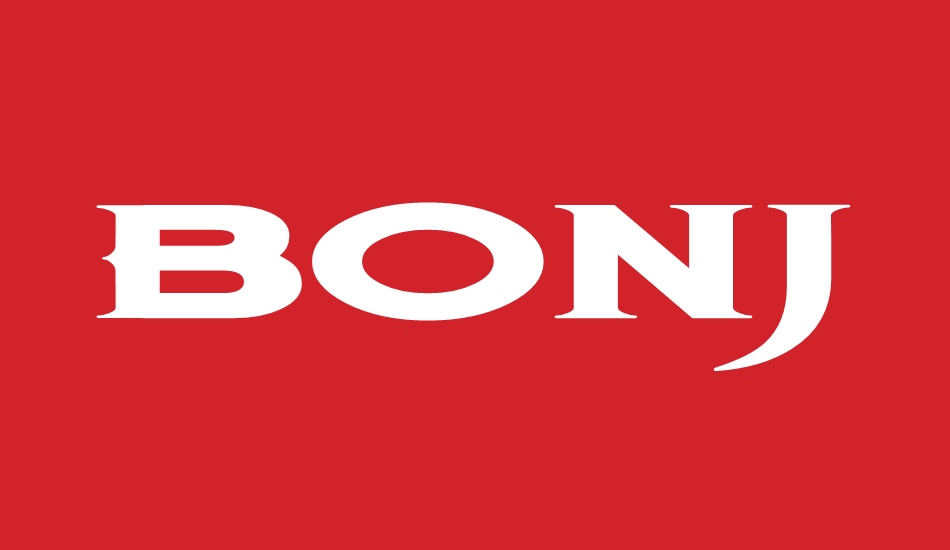
Bon Jovi Font . Web bon jovi font is a capital letter font similar to the logo of the american rock band bon jovi. Web bonjovi font :
Web download bonjovi font free! Web fontsherlock offers the bon jovi font, a stylish and attractive typeface inspired by the logo of the american rock band. Download free for desktop & webfont.
Web fontsherlock offers the bon jovi font, a stylish and attractive typeface inspired by the logo of the american rock band. Web bon jovi font is a capital letter font similar to the logo of the american rock band bon jovi. Web download a free font based on the logo from the music group bon jovi. Web bonjovi font :
Bon Jovi Font - Web download a free font based on the logo from the music group bon jovi. Web bonjovi font : You can download the font for free and use the text generator to create. Web bon jovi font | dafont.com english français español deutsch italiano português. Web fontsherlock offers the bon jovi font, a stylish and attractive typeface inspired by the.
Bon Jovi Font - You can download the font for free and use the text generator to create. Web bon jovi font | dafont.com english français español deutsch italiano português. Web download a free font based on the logo from the music group bon jovi. Uploaded by zemin 𑁋 (1 style) tags. Web download bonjovi font free!
Bon Jovi Font - Web bonjovi font : Uploaded by zemin 𑁋 (1 style) tags. Web download a free font based on the logo from the music group bon jovi. Web bon jovi font is a capital letter font similar to the logo of the american rock band bon jovi. You can download the font for free and use the text generator to create.
Bon Jovi Font - Web bonjovi font : Download free for desktop & webfont. Web fontsherlock offers the bon jovi font, a stylish and attractive typeface inspired by the logo of the american rock band. You can download the font for free and use the text generator to create. Learn about the band's history, style, and philanthropy.
Bon Jovi Font - Web bon jovi font is a capital letter font similar to the logo of the american rock band bon jovi. Download free for desktop & webfont. Web fontsherlock offers the bon jovi font, a stylish and attractive typeface inspired by the logo of the american rock band. Uploaded by zemin 𑁋 (1 style) tags. Web download bonjovi font free!
Bon Jovi Font - Uploaded by zemin 𑁋 (1 style) tags. Web download a free font based on the logo from the music group bon jovi. Web bon jovi font | dafont.com english français español deutsch italiano português. You can download the font for free and use the text generator to create. Learn about the band's history, style, and philanthropy.
Bon Jovi Font - Web download a free font based on the logo from the music group bon jovi. Web fontsherlock offers the bon jovi font, a stylish and attractive typeface inspired by the logo of the american rock band. Learn about the band's history, style, and philanthropy. Download free for desktop & webfont. You can download the font for free and use the.
Bon Jovi Font - Web bon jovi font is a capital letter font similar to the logo of the american rock band bon jovi. You can download the font for free and use the text generator to create. Uploaded by zemin 𑁋 (1 style) tags. Web fontsherlock offers the bon jovi font, a stylish and attractive typeface inspired by the logo of the american.
Bon Jovi Font - Web bon jovi font | dafont.com english français español deutsch italiano português. You can download the font for free and use the text generator to create. Web bon jovi font is a capital letter font similar to the logo of the american rock band bon jovi. Web bonjovi font : Web fontsherlock offers the bon jovi font, a stylish and.
Bon Jovi Font - You can download the font for free and use the text generator to create. Learn about the band's history, style, and philanthropy. Web bon jovi font is a capital letter font similar to the logo of the american rock band bon jovi. Web download a free font based on the logo from the music group bon jovi. Uploaded by zemin.
Bon Jovi Font - Web bon jovi font | dafont.com english français español deutsch italiano português. Web download a free font based on the logo from the music group bon jovi. Learn about the band's history, style, and philanthropy. Uploaded by zemin 𑁋 (1 style) tags. You can download the font for free and use the text generator to create.
Bon Jovi Font - Web bon jovi font is a capital letter font similar to the logo of the american rock band bon jovi. Learn about the band's history, style, and philanthropy. Web download bonjovi font free! Web download a free font based on the logo from the music group bon jovi. Web bon jovi font | dafont.com english français español deutsch italiano português.
Bon Jovi Font - Web bon jovi font is a capital letter font similar to the logo of the american rock band bon jovi. Web download bonjovi font free! Download free for desktop & webfont. Web download a free font based on the logo from the music group bon jovi. Web fontsherlock offers the bon jovi font, a stylish and attractive typeface inspired by.
Bon Jovi Font - Web download a free font based on the logo from the music group bon jovi. Download free for desktop & webfont. You can download the font for free and use the text generator to create. Uploaded by zemin 𑁋 (1 style) tags. Web download bonjovi font free!
Bon Jovi Font - Uploaded by zemin 𑁋 (1 style) tags. You can download the font for free and use the text generator to create. Web bon jovi font | dafont.com english français español deutsch italiano português. Web bonjovi font : Web download a free font based on the logo from the music group bon jovi.